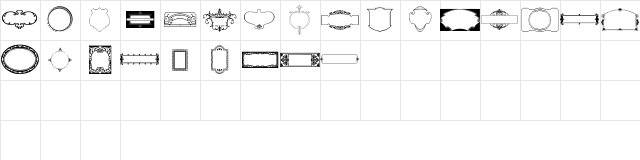
Vintage Panels_08 Regular Free Font
Vintage Panels_08 Regular
Foundry: Sughayer Foundry
Designer: Sughayer Foundry
Complete Vintage Panels_08 Regular glyph index. Displaying only characters natively supported by Vintage Panels_08 Regular font.
Design Context for Vintage Panels_08
Vintage Panels_08 wears its vintage influences proudly, with letterforms that recall mid-century signage, classic packaging, and nostalgia-driven design.
Font Pairing: Combine Vintage Panels_08 with a simple slab or neutral sans - period-accurate companions reinforce the vintage feel without competing for attention.
Pro Tip: Lean into Vintage Panels_08's period character by pairing it with aged paper textures, muted colour palettes, and vintage illustration styles.